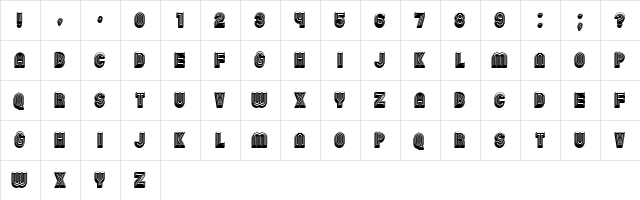
Chicago Neon 3D Regular
Design Context for Chicago Neon 3D Typeface
Chicago Neon 3D has a distinctly futuristic character, with geometric precision and clean angles that feel at home in technology, gaming, and sci-fi contexts.